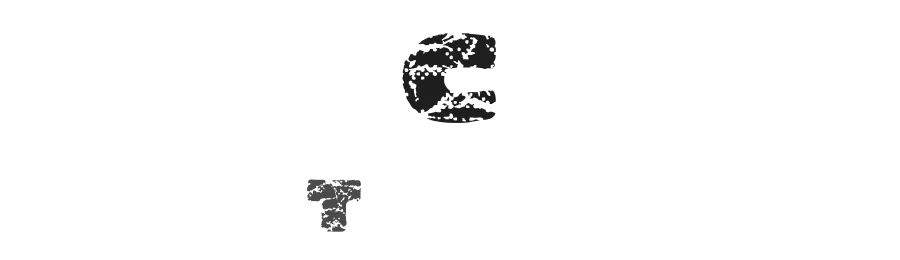
About Rio Grande Font
Rio Grande is a decorative font designed by Anton Krylov. It includes 94 glyphs, a bold weight, TTF (TrueType) format, and 104 languages. Rio Grande is free to download; check the license details on this page before commercial use. Decorative fonts like Rio Grande work best for logos, posters, packaging, and standout headlines.
Rio Grande Font is a decorative font that shines as a display or heading face. Pair it with a clean sans-serif or serif font for body text β the contrast creates a clear hierarchy while the two styles stay balanced and easy to read.
Rio Grande Font
by Anton Krylov